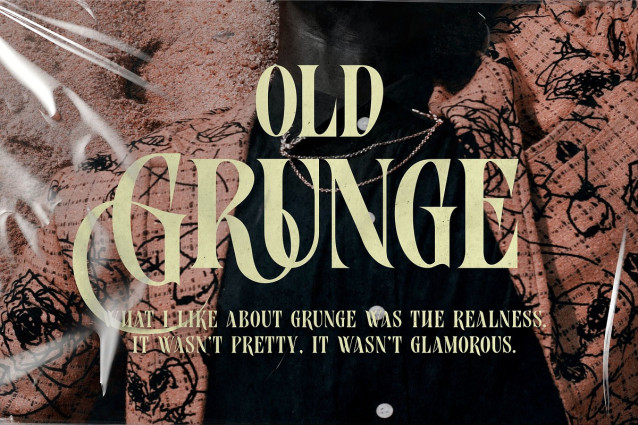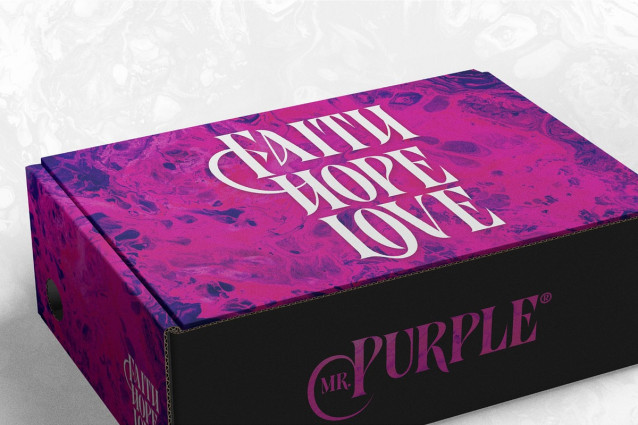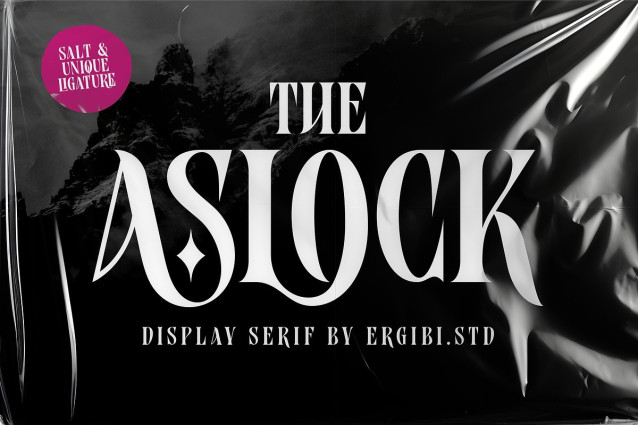
Aslock Font
Aslock Font is a display serif font that embraces classic modern vibes and look elegant. Its delicate curves and refined details create a sense of sophistication Aslock brings a touch of charm and sophistication to branding, With its versatility and contemporary appeal